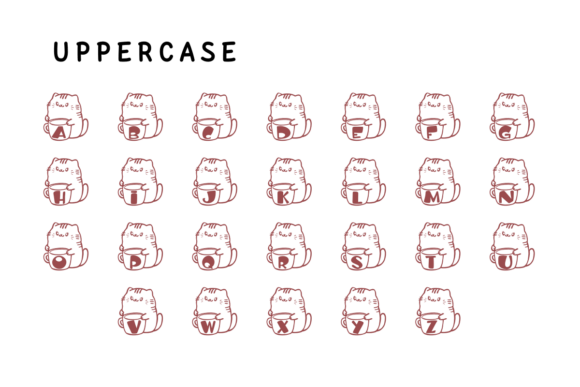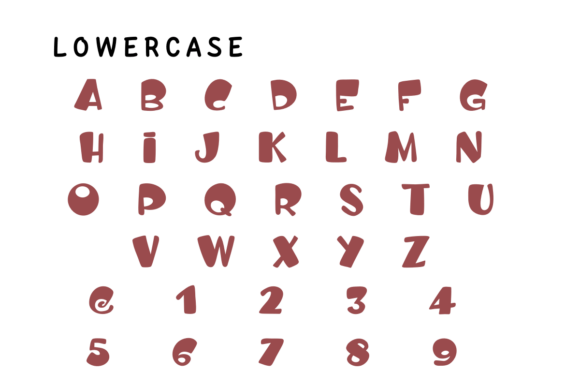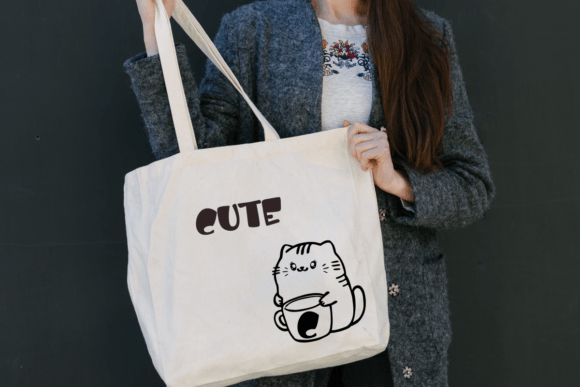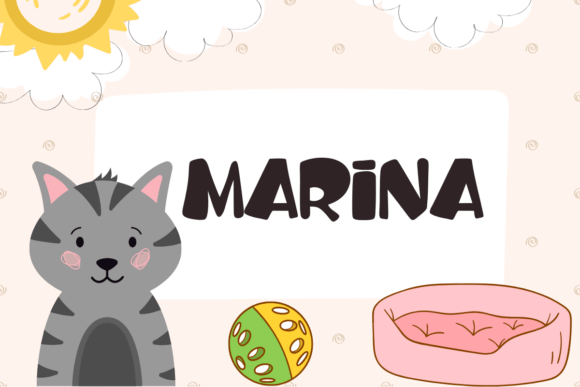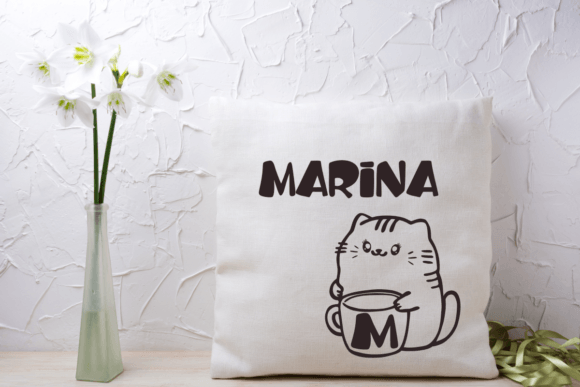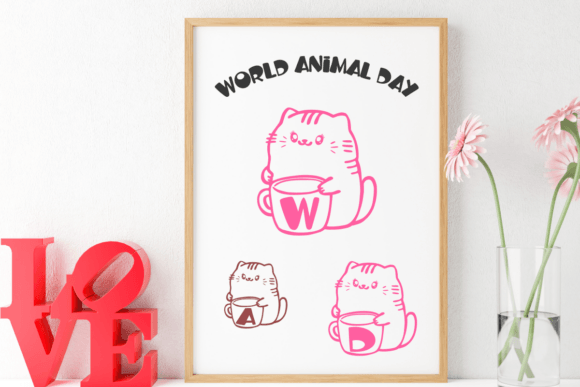
The Whimsy of Cat and Cup Font
Who hasn’t found themselves lost in a creative moment, surrounded by colorful pens, sticky notes, and a dash of inspiration? For many, the spark of creativity often begins with a simple, yet elegant font that adds a touch of personality to their work. This is where the Cat and Cup Font comes in – a decorative font designed to bring a sense of whimsy and playfulness to your designs.
Whether you’re taking notes, writing a diary, or creating greeting cards, the Cat and Cup Font is the perfect companion for your creative endeavors. Its versatility makes it an invaluable asset for designers, allowing them to experiment with various projects, from banners and social media posts to mugs and shirts. With its charming aesthetic, the Cat and Cup Font is sure to add a unique touch to any design, making it a valuable addition to your creative toolkit.
Cat and Cup Font Key Features
- Font Family: Cat and Cup is a sans-serif font family designed by Unknown.
- Unique Characteristics: Cat and Cup features a unique blend of modern and playful elements, with subtle cat and cup motifs integrated into the design.
Designer Review: Cat and Cup Font
Overall, the Cat and Cup Font has a whimsical charm that’s sure to delight fans of playful typography. ✨ The font’s rounded edges and gentle curves give it a soft, approachable feel that’s perfect for children’s books, magazines, or any project where you want to convey a sense of innocence and wonder. ✨ The font’s versatility also makes it a great choice for digital and print projects alike.
One thing that stands out about Cat and Cup Font is its range of stylistic sets. ✨ You can choose from a variety of options to create unique and custom looks for your projects. Additionally, the font is available in several weights, from light to bold, making it easy to match the font to your project’s tone and style.
- Rounded edges and gentle curves for a soft, approachable feel
- Versatility for digital and print projects
- Range of stylistic sets for custom looks
- Available in several weights
- May not be suitable for formal or serious projects
- Lack of bold character set in certain languages
- Some characters may not be as legible at small font sizes
The Cat and Cup Font is a delightful addition to any designer’s toolkit. While it may not be the best choice for every project, its playful charm and versatility make it a great option for designers looking to add some whimsy to their work. With a little creativity and experimentation, you can unlock the full potential of this font and create truly unique and engaging designs.
Use the Cat and Cup Font to add a playful touch to your designs, especially for children’s products, food, or beverage branding.
Cat and Cup Font is ideal for:
- Children’s product packaging
- Playful social media posts
- Whimsical illustrations